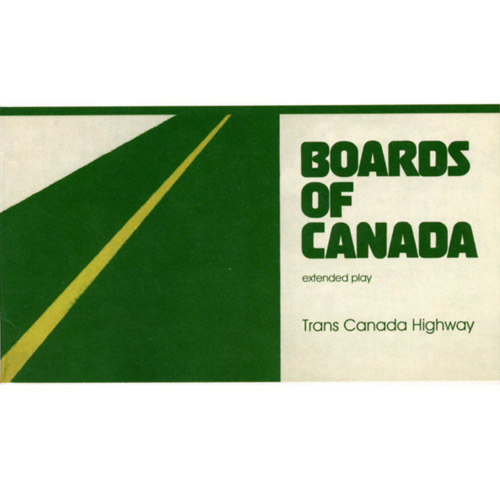
(x) late 70s-early 80s font on Boards Of Canada album cover - Harry Obese {Ignacio}
an album cover by boards of canada, the text in question is the band name, boards of canada. i don’t know the font off hand but it looks like something that was popular in around the beginning of the 80s, though it could be made to look like that. thanks for your help!
I think it is a Harry Obese modified, some of the characters (R, F, N, A) are exactly the same. I just have found digitized the Squeeze version but still you can see it.
There is a sample in the Phil’s Homage To The Alphabet catalog (p.205).
Ignacio is correct. You can get someone close with Neo Sans Ultra.